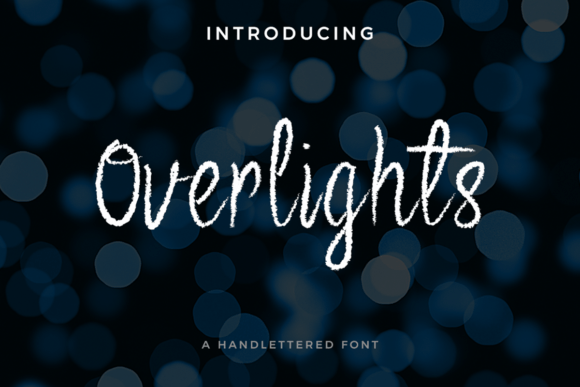
Introducing Overlights Font: A Delightfully Distinctive Typeface
In the world of typography, fonts play a crucial role in conveying the tone and personality of a brand or creative project. With the vast array of fonts available, it can be challenging to find one that stands out from the rest. However, if you’re looking for a typeface that seamlessly blends the charm of handwritten text with the elegance of hand-lettered script, look no further than Overlights Font.
The Charm of Overlights Font
Overlights Font is a delightfully distinctive typeface that is infused with a palpable sense of creativity. This enchanting font is perfect for any ambitious creative project, as it brings a unique and lovely touch to your text. The authenticity and charm of this unforgettable script font truly set it apart from other typefaces.
One of the standout features of Overlights Font is its ability to blend simplicity and sophistication. The font’s design is both elegant and approachable, making it perfect for a wide range of applications. Whether you’re working on a branding project, creating a website, or designing a marketing campaign, Overlights Font is sure to make a lasting impression.
The Benefits of Using Overlights Font
So, what makes Overlights Font so special? Here are just a few benefits of using this delightful typeface:
- Unique and Memorable: Overlights Font is a truly unique typeface that will help your brand or project stand out from the crowd. Its distinctive design ensures that your text will be remembered long after it’s been seen.
- Creative and Versatile: Overlights Font is incredibly versatile, making it perfect for a wide range of creative projects. Whether you’re working on a logo, brochure, or website, this font is sure to bring your vision to life.
- Elegant and Sophisticated: Despite its creative and playful nature, Overlights Font is also incredibly elegant and sophisticated. This makes it perfect for projects that require a touch of refinement and luxury.
- Easy to Read: One of the most important aspects of any font is readability. Fortunately, Overlights Font is incredibly easy to read, even at small sizes. This makes it perfect for body text, headings, and more.
The Design of Overlights Font
So, what makes Overlights Font so unique? The answer lies in its design. This beautiful typeface has been carefully crafted to blend the charm of handwritten text with the elegance of hand-lettered script. The result is a font that is both playful and sophisticated.
One of the standout features of Overlights Font is its use of subtle variations in line width and letterform. This creates a sense of movement and energy, making the font feel truly alive. Additionally, the font’s letters are carefully spaced to create a sense of flow and continuity.
Using Overlights Font in Your Creative Projects
So, how can you use Overlights Font in your creative projects? The possibilities are endless! Here are a few ideas to get you started:
- Branding: Use Overlights Font as part of your brand identity to create a unique and memorable logo.
- Marketing Materials: Use Overlights Font in your marketing materials, such as brochures, flyers, and posters, to add a touch of elegance and sophistication.
- Web Design: Use Overlights Font on your website to create a beautiful and engaging user experience.
- Social Media: Use Overlights Font in your social media graphics to add a touch of personality and creativity.
Tips for Getting the Most Out of Overlights Font
To get the most out of Overlights Font, here are a few tips to keep in mind:
- Use it Sparingly: While Overlights Font is incredibly beautiful, it’s best used sparingly. Use it for headings, titles, or other key elements to create a lasting impression.
- Experiment with Colors: Overlights Font looks amazing in a variety of colors. Experiment with different colors to find the perfect combination for your project.
- Pair it with Other Fonts: Overlights Font pairs beautifully with other fonts. Experiment with different font combinations to find the perfect match for your project.
In conclusion, Overlights Font is a truly unique and delightful typeface that is sure to bring a touch of elegance and sophistication to any creative project. Its blend of simplicity and sophistication makes it perfect for a wide range of applications, from branding and marketing materials to web design and social media graphics.